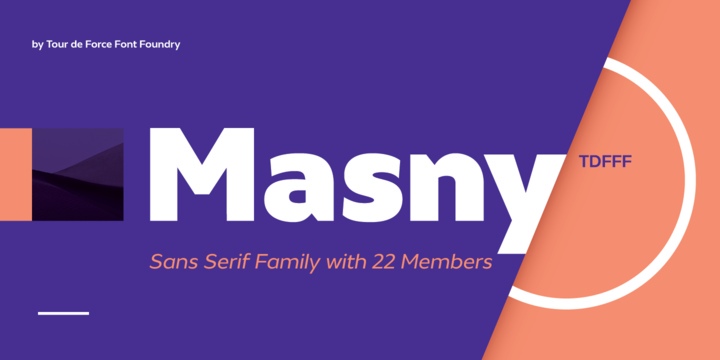
Masny Font
Masny Font is perfectly suited for contemporary logo designs, modern branding projects, sleek website headers, minimalist advertising campaigns, tech startup identities, fashion brand materials, architectural firm presentations, creative agency portfolios, and sophisticated print publications.
What makes Masny Font so exciting is its perfect fusion of geometric precision and organic warmth that creates a distinctive visual personality without sacrificing professional appeal. This exceptional typeface features carefully balanced letterforms that combine clean, modern lines with subtle humanist touches, resulting in typography that feels both contemporary and timeless. The font's sophisticated character shapes and refined proportions demonstrate exceptional craftsmanship while maintaining the versatility needed for diverse design applications. Masny Font stands out through its ability to convey innovation, reliability, and creative excellence, making it ideal for brands and designers who need a typeface that projects confidence and modernity while remaining approachable and engaging to diverse audiences.
The Masny Font family includes Light, Regular, Medium, Bold, and Black weights, each available in both upright and italic styles. This comprehensive range provides designers with maximum flexibility for creating sophisticated typographic hierarchies and maintaining visual consistency across complex branding systems and multi-platform applications.
The technical superiority of Masny Font includes an extensive character set supporting multiple languages, advanced OpenType features, and meticulous spacing optimization for both screen and print applications. The font maintains exceptional legibility across all sizes while preserving its distinctive character, making it perfect for comprehensive brand systems that require consistent performance from business cards to billboard applications.
Whether you're developing brand identities, designing digital interfaces, creating marketing collateral, or building comprehensive visual systems, Masny Font provides the perfect balance of contemporary style, professional reliability, and creative flexibility that ensures your designs remain effective and memorable in today's competitive marketplace.